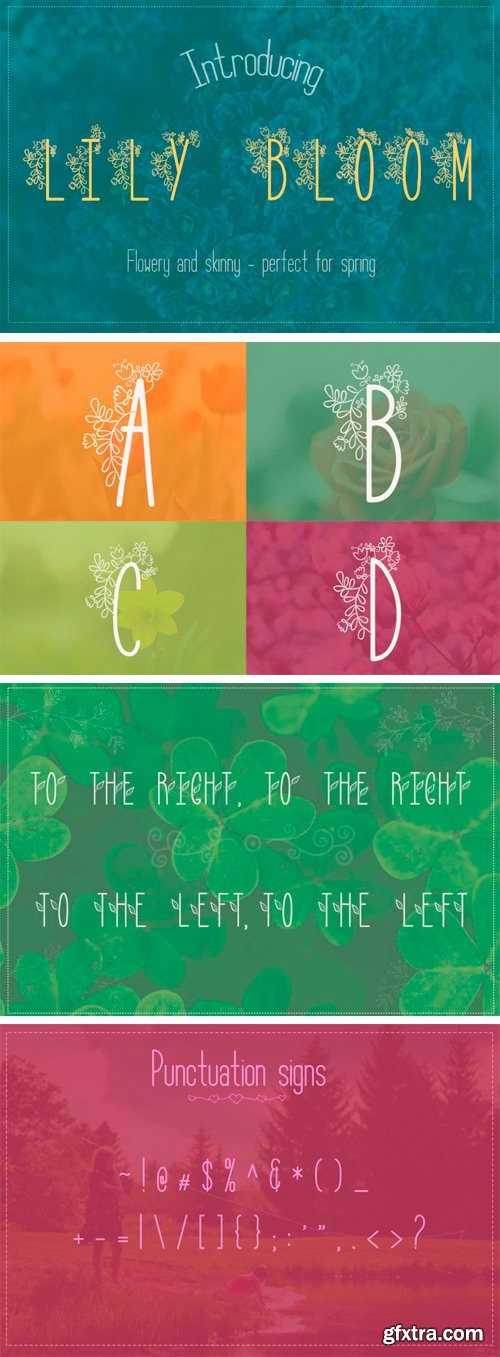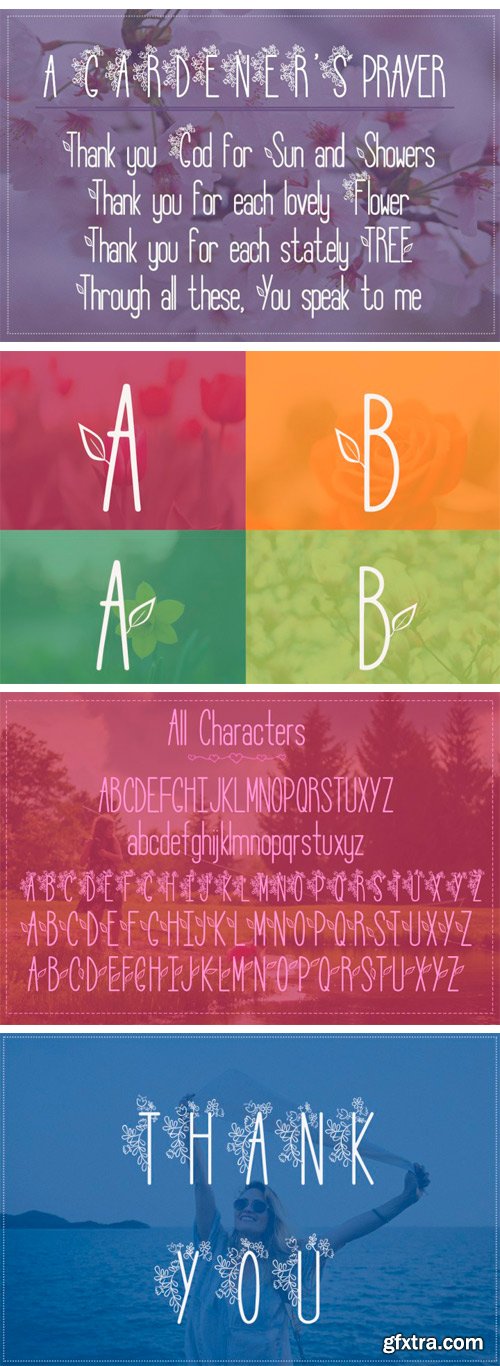
Thehungryjpeg - Lily Bloom Flowery Font with 4 Styles 65403
Presenting Lily Bloom! A playful new font that is perfect for crafters and not only. If you want to create beautiful project in minutes Lily Bloom is the choice! The download file contains four fonts: Regular, Flowers, Leaves Left and Leaves Right, letters and extended punctuation.